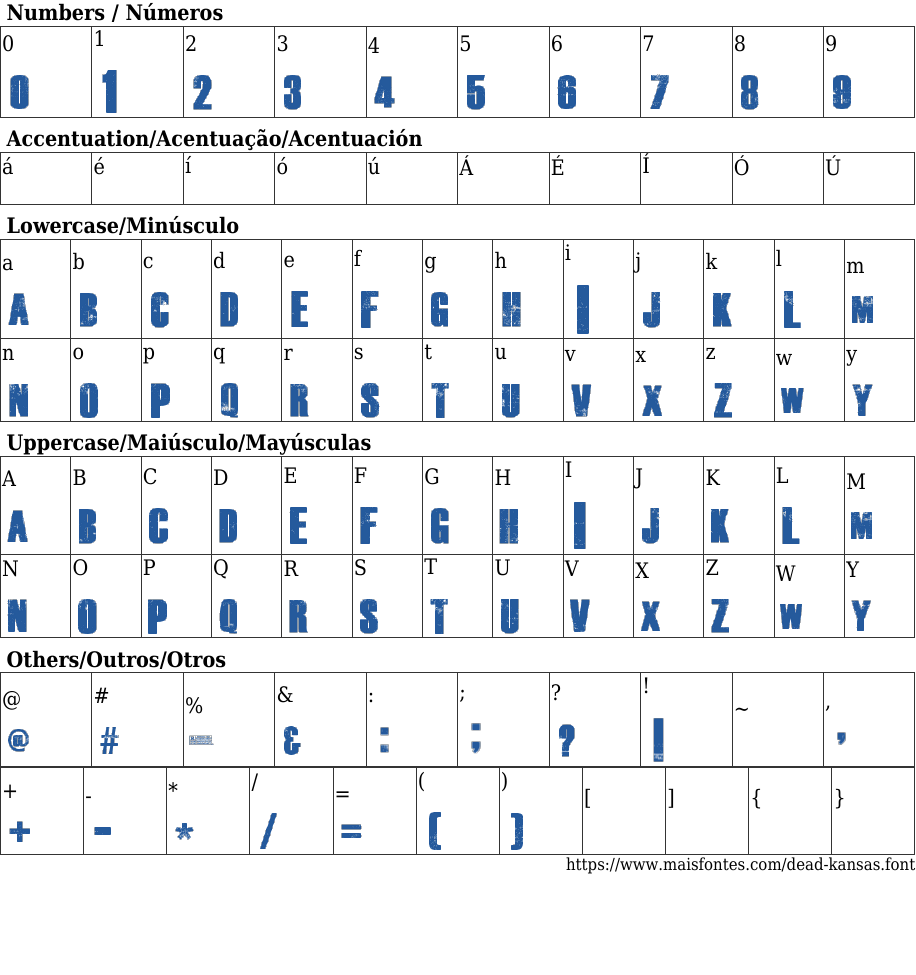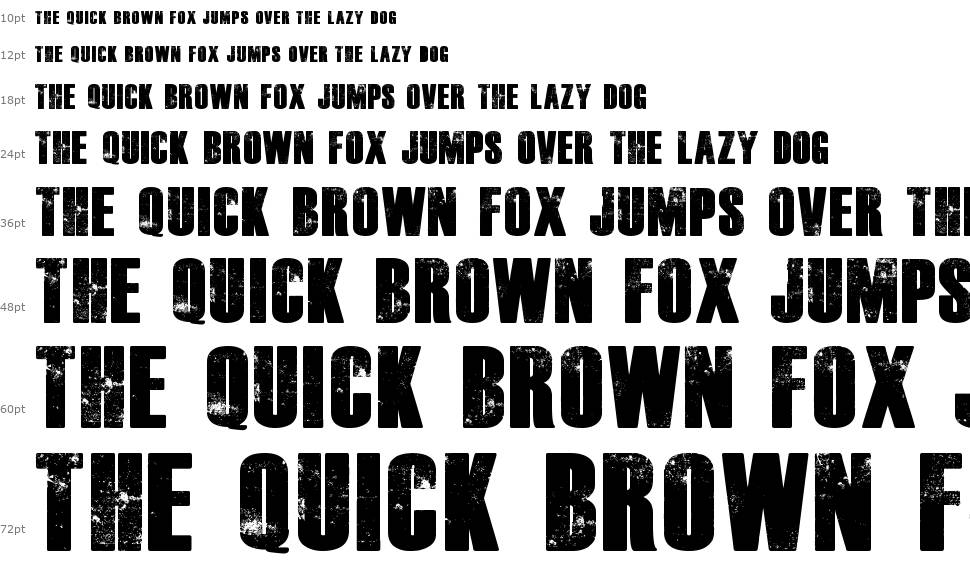
Dead Kansas Font . Web dead kansas font | designed by the wondermaker | download dead kansas for windows and mac | category: This font contains 655 characters and 88 glyphs with eroded style and is inspired.
Web dead kansas is a sans serif font with eroded edges, designed by the wondermaker. Web download dead kansas font for free for personal use only. 15 matching requests on the forum. Download free for desktop & webfont.
Dead Kansas Font - Web dead kansas font : This font contains 655 characters and 88 glyphs with eroded style and is inspired. Free for personal use commercial use: Uploaded by zemin 饝亱 (1 style) report a violation. 15 matching requests on the forum.
Dead Kansas Font - This font contains 655 characters and 88 glyphs with eroded style and is inspired. Free for personal use commercial use: Web dead kansas is a sans serif font with eroded edges, designed by the wondermaker. Download free for desktop & webfont. You can download it for free for personal use, or use the text.
Dead Kansas Font - Web dead kansas is a sans serif font with eroded edges, designed by the wondermaker. Uploaded by zemin 饝亱 (1 style) report a violation. This font contains 655 characters and 88 glyphs with eroded style and is inspired. 15 matching requests on the forum. You can download it for free for personal use, or use the text.
Dead Kansas Font - This font contains 655 characters and 88 glyphs with eroded style and is inspired. Web dead kansas is a sans serif font with eroded edges, designed by the wondermaker. Download free for desktop & webfont. Free for personal use commercial use: 15 matching requests on the forum.
Dead Kansas Font - This font contains 655 characters and 88 glyphs with eroded style and is inspired. Web dead kansas is a sans serif font with eroded edges, designed by the wondermaker. Download free for desktop & webfont. Web dead kansas font : 15 matching requests on the forum.
Dead Kansas Font - Web thousands of designers (famous or not) use the image font detection system to find a font or similar free fonts from an. Web dead kansas is a sans serif font with eroded edges, designed by the wondermaker. Web dead kansas font | dafont.com. Uploaded by zemin 饝亱 (1 style) report a violation. Free for personal use commercial use:
Dead Kansas Font - Free for personal use commercial use: Web thousands of designers (famous or not) use the image font detection system to find a font or similar free fonts from an. Uploaded by zemin 饝亱 (1 style) report a violation. This font contains 655 characters and 88 glyphs with eroded style and is inspired. Web dead kansas font :
Dead Kansas Font - Web dead kansas font | designed by the wondermaker | download dead kansas for windows and mac | category: Web thousands of designers (famous or not) use the image font detection system to find a font or similar free fonts from an. Free for personal use commercial use: Uploaded by zemin 饝亱 (1 style) report a violation. Web dead kansas.
Dead Kansas Font - Web dead kansas is a sans serif font with eroded edges, designed by the wondermaker. You can download it for free for personal use, or use the text. 15 matching requests on the forum. Web download dead kansas font for free for personal use only. Web thousands of designers (famous or not) use the image font detection system to find.
Dead Kansas Font - Free for personal use commercial use: Web dead kansas font | dafont.com. Web download dead kansas font for free for personal use only. This font contains 655 characters and 88 glyphs with eroded style and is inspired. Download free for desktop & webfont.
Dead Kansas Font - Web thousands of designers (famous or not) use the image font detection system to find a font or similar free fonts from an. This font contains 655 characters and 88 glyphs with eroded style and is inspired. Web dead kansas font : Web download dead kansas font for free for personal use only. Uploaded by zemin 饝亱 (1 style) report.